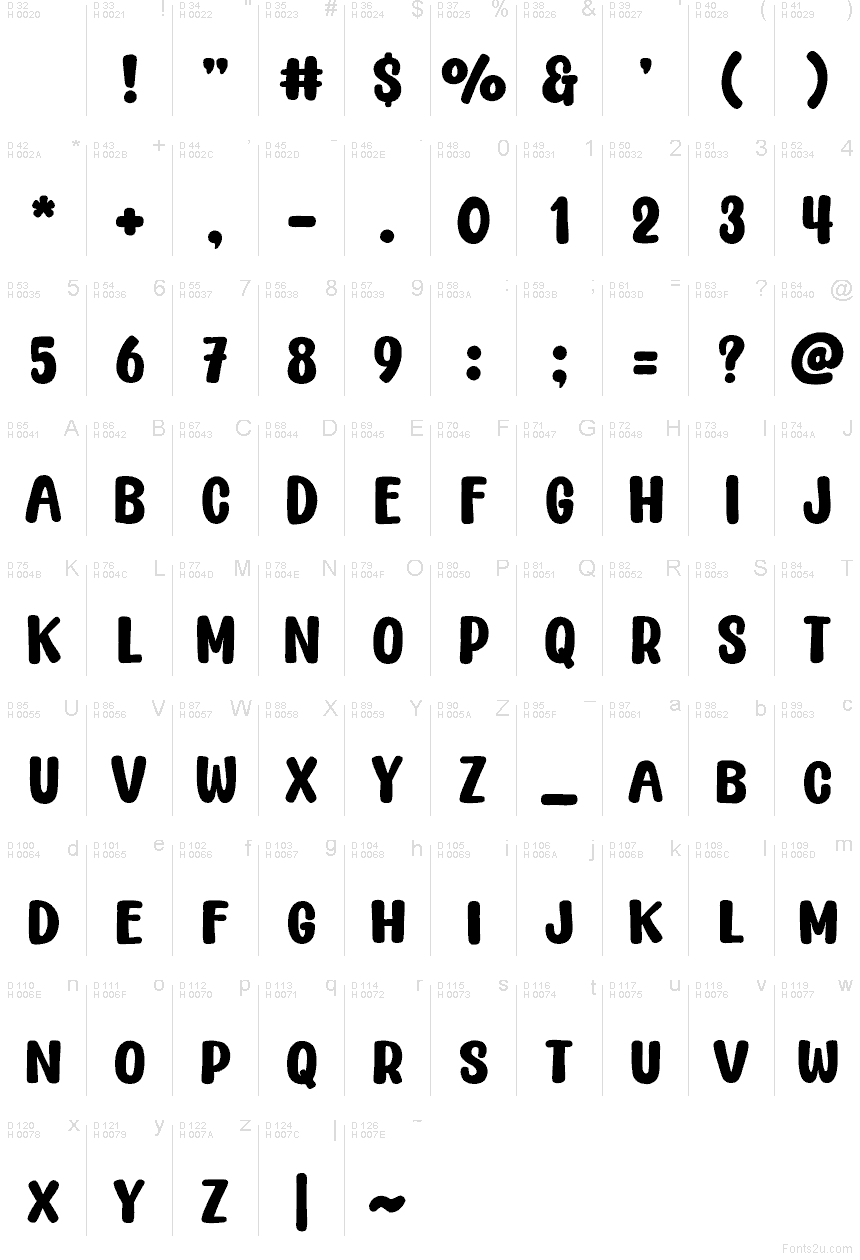
Song of Valentine Sans
Song of Valentine Sans font by Khurasan is a free cartoon display typeface that turns any headline into a bold, shout-it-from-the-rooftops message. Tall, chunky letters squeeze together like hand-painted poster text, with a slightly wobbly rhythm that feels lively and human rather than polished and corporate. The dense black shapes give strong impact even at small sizes, while the narrow width makes long titles and phrases easy to fit on a single line.
Using Song of Valentine Sans, you can punch up greeting cards, kids’ book covers, playful logos, YouTube thumbnails, stickers, and social media graphics. This free font works beautifully wherever you need loud, fun, and a little bit messy in the best way. Try pairing it with a light, clean sans serif for body copy and let Song of Valentine Sans handle the noisy, attention-grabbing headlines.